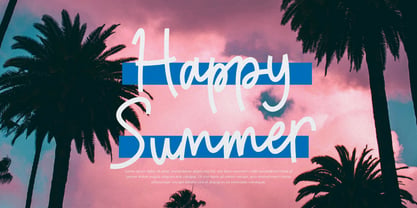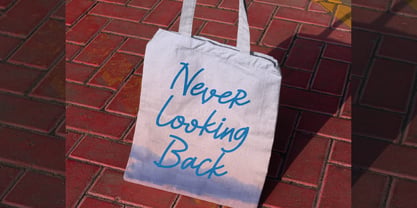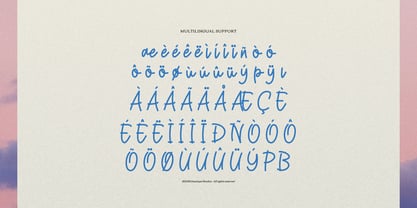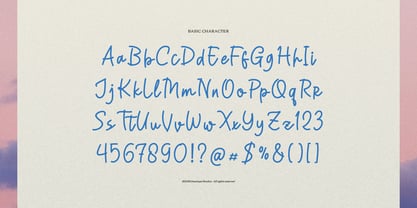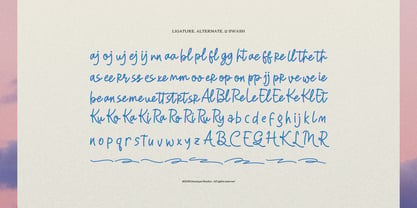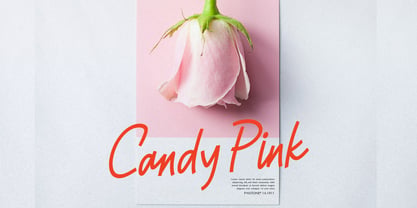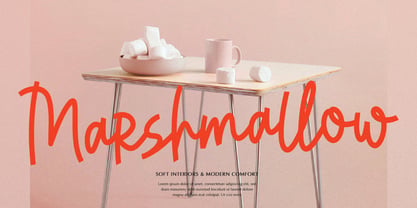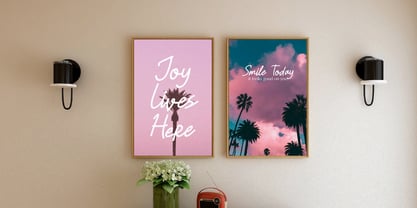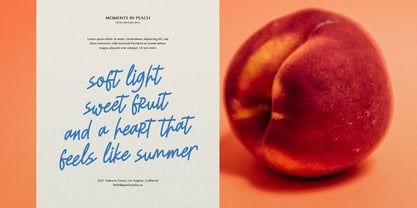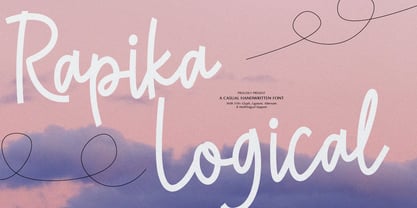
Rapika Logical
Rapika Logical | Casual Handwritten, from Gracetypestudio, suitable for any projects such as: logos, branding projects, homeware designs, product packaging, mugs, quotes, posters, shopping bags, t-shirts, book covers, name card, invitation cards, greeting cards, label, photography, watermark, special events, and all your other lovely projects that need a Handwritten taste.